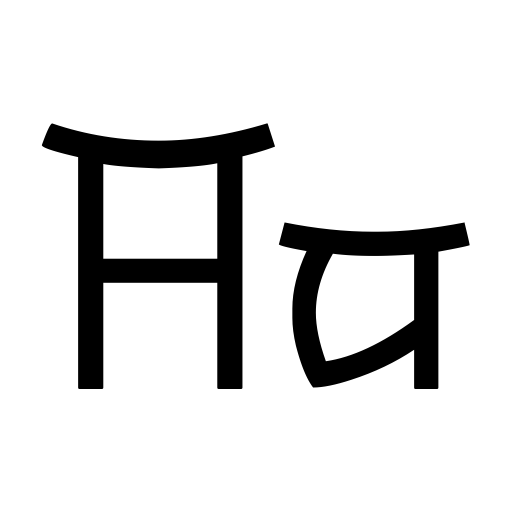
Japan Gate Font is a unique, narrow sans-serif typeface featuring an angular, almost calligraphic stroke style that evokes an East Asian aesthetic. Its irregular letterforms, with distinct sharp terminals and slightly varied line weights, give it a handcrafted and exotic feel, making it ideal for creative headlines, cultural branding, and artistic projects seeking a modern yet traditional flair. This font works best in display use where its artistic personality can shine without sacrificing readability.
Japan Gate Font
About Japan Gate Font